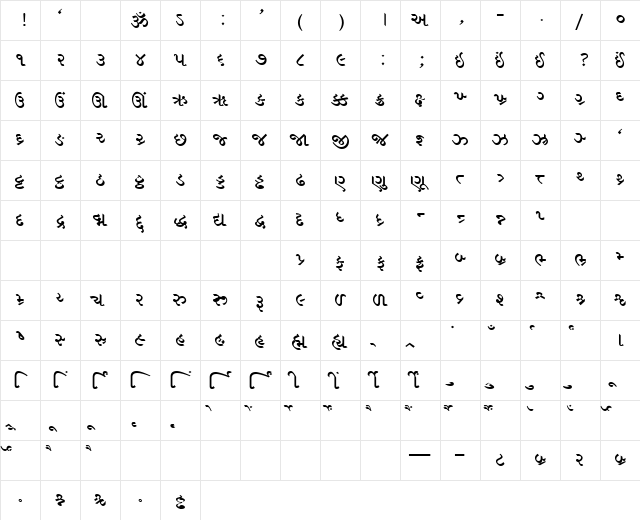
AkrutiGujFalguni Normal Font Preview
AkrutiGujFalguni Normal
AkrutiGujFalguni Normal Font Details
Design Context for AkrutiGujFalguni Typeface
AkrutiGujFalguni is a composed and adaptable typeface that performs quietly and consistently across a wide range of design contexts.